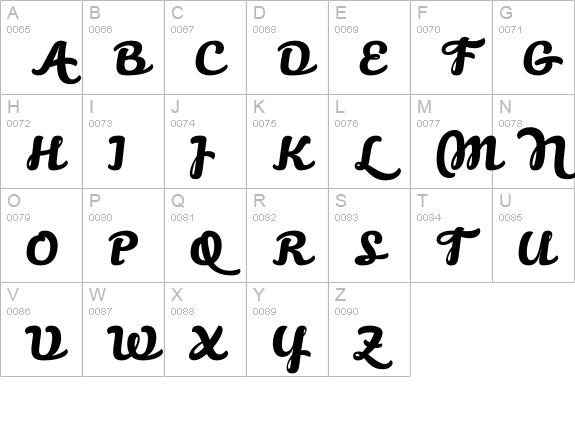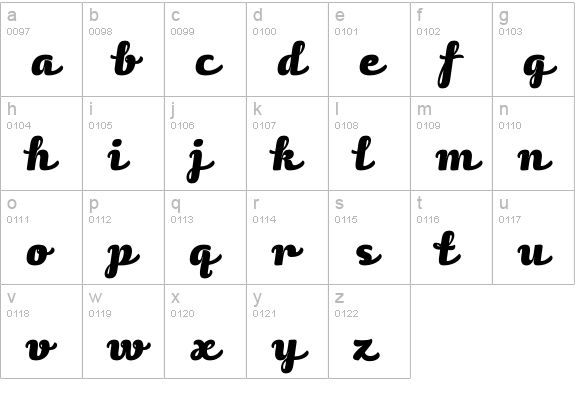
Volupia Font Details
Introducing Volupia, a captivating and versatile font that effortlessly captures attention with its unique blend of elegance and modernity. Designed with precision and creativity, Volupia adds an enchanting touch to any project, whether it's graphic design, branding, or editorial work. With its bold and distinctive letterforms, Volupia commands the viewer's gaze, leaving a lasting impression. Every curve and stroke of this typeface exudes confidence and sophistication, making it perfect for conveying a sense of luxury and refinement. But what sets Volupia apart is not just its stunning aesthetics; it's also its flexibility and functionality. Whether you're looking for a strong headline font or a stylish body text, Volupia delivers with its wide range of weights and styles. From the assertive bold to the delicate light, this font can adapt to any design concept, ensuring your message is conveyed with clarity and impact. The best part? Volupia is free! Yes, you read that right. This exceptional font is freely available to download at FontsMarket.com. Now you can enhance your designs without worrying about breaking the bank. Take advantage of this opportunity and unlock the full potential of your creative projects with Volupia. So why wait? Elevate your designs to new heights with Volupia. Download this remarkable font today, and let your creativity shine like never before.